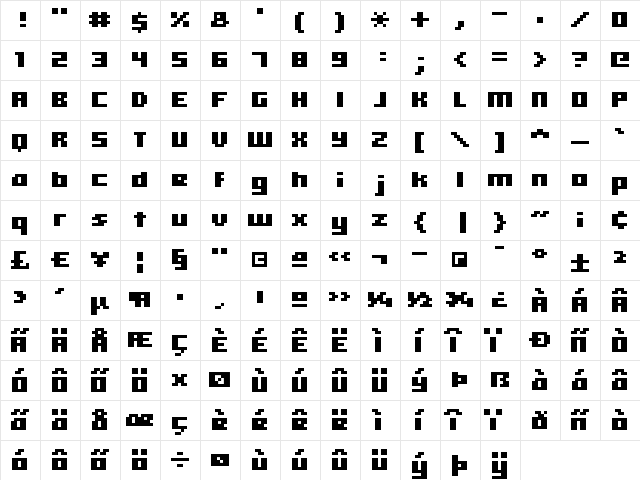
hooge 05_66 Regular Font Preview
hooge 05_66 Regular
hooge 05_66 Regular Font Details
Design Context for hooge 05_66 Typeface
hooge 05_66 takes a measured approach to typography — its balanced proportions and neutral character make it a reliable workhorse for both digital and print work.